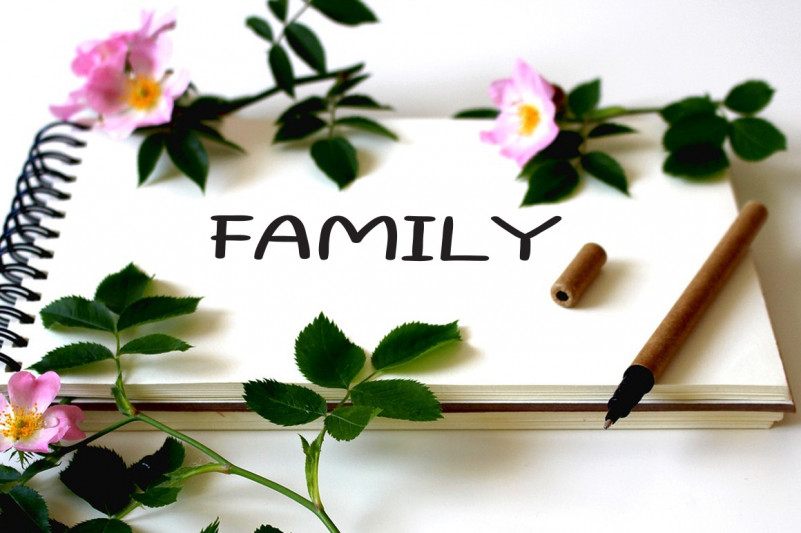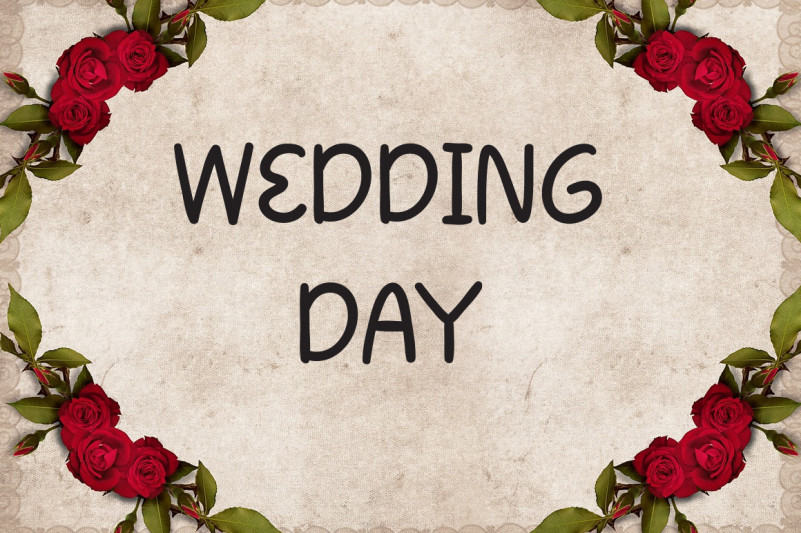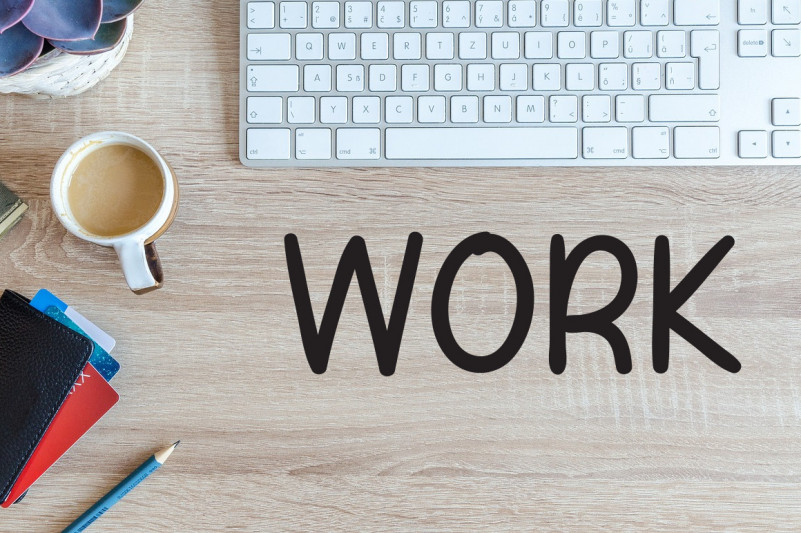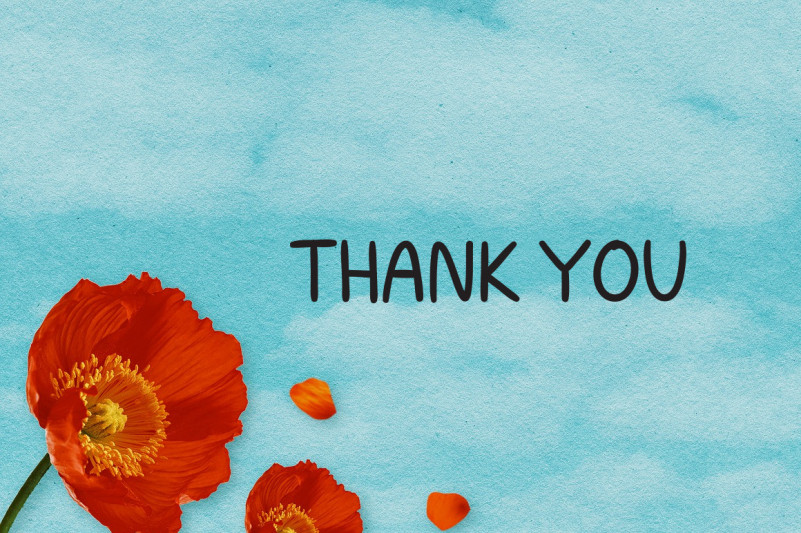
Homeland Life Display Font
This is a simple and adaptable handwritten font. Its natural and unique style makes it incredibly fitting to a large pool of designs. Have fun with this beautiful font and explore its endless variations.